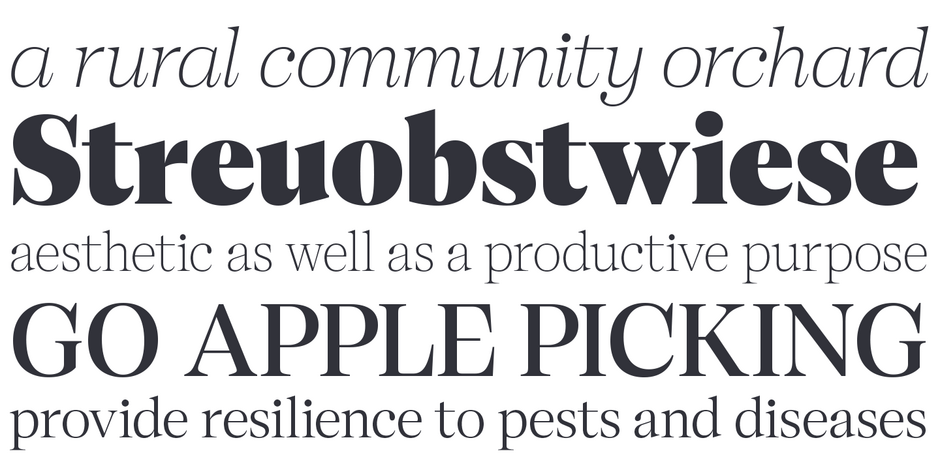
Cotford™ Perfect Font Pairings
ABOUT THE FAMILY:
As a Transitional Serif design, the axis of Cotford’s the strokes normally have a vertical stress. Weight contrast is more pronounced in the display designs. Serifs are bracketed and head serifs are oblique. Cotford ranges from micro to display optical size, across Thin to Black weights, providing legible and stylish type at all sizes.
WHAT TO LOOK FOR IN FONTS THAT PAIR WELL WITH COTFORD:
• Typefaces that serve as a counterpoint, such as Humanistic and Geometric Sans
• Glyphic designs like Friz Quadrata™ or Albertus® Nova make for good display complements to Cotford text
• Look to Slab or Clarendon typefaces, like Sentinel® or Grotesque Sans, like Whitney®
• Cotford is available as a variable design. Experiment with instances of the variable font that contrast with and complement the fixed designs.
• Avoid other Transitional designs like, Baskerville™ or Perpetua®